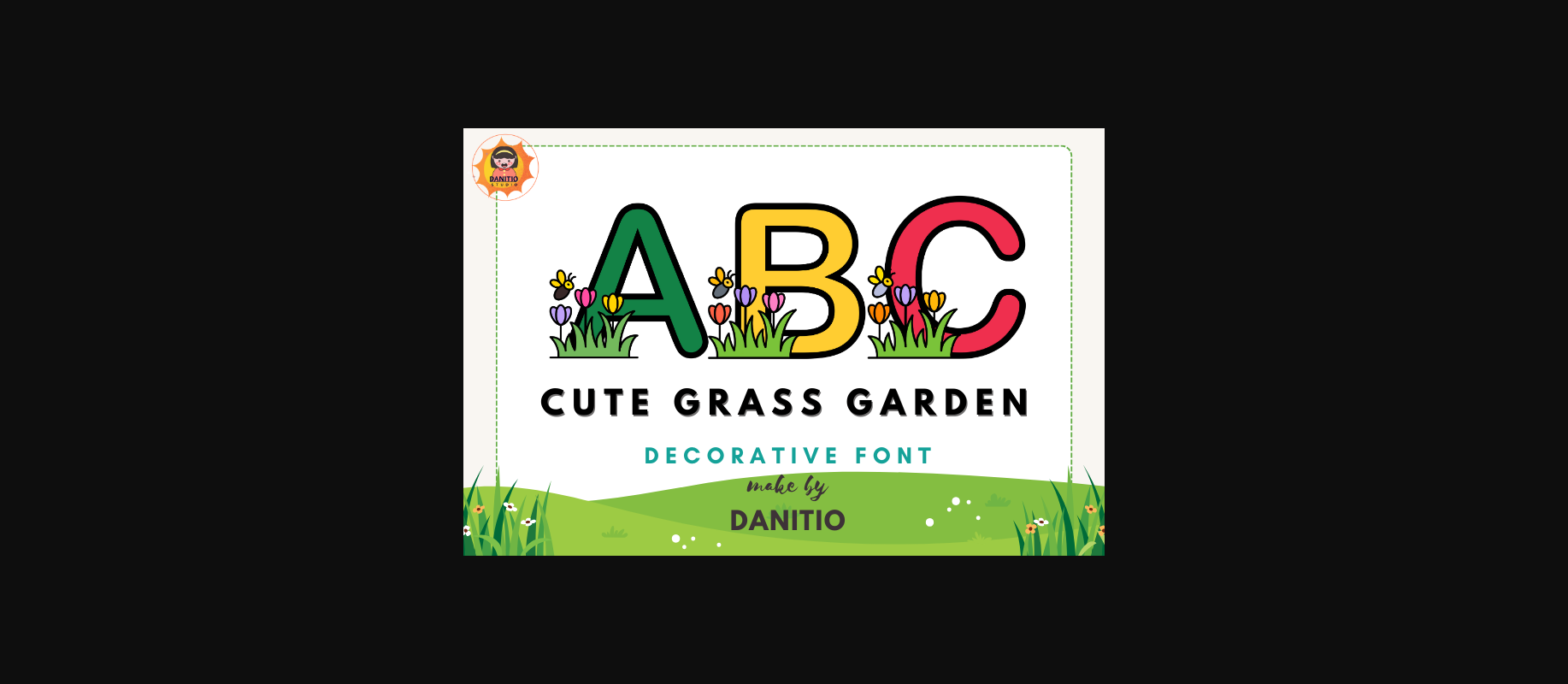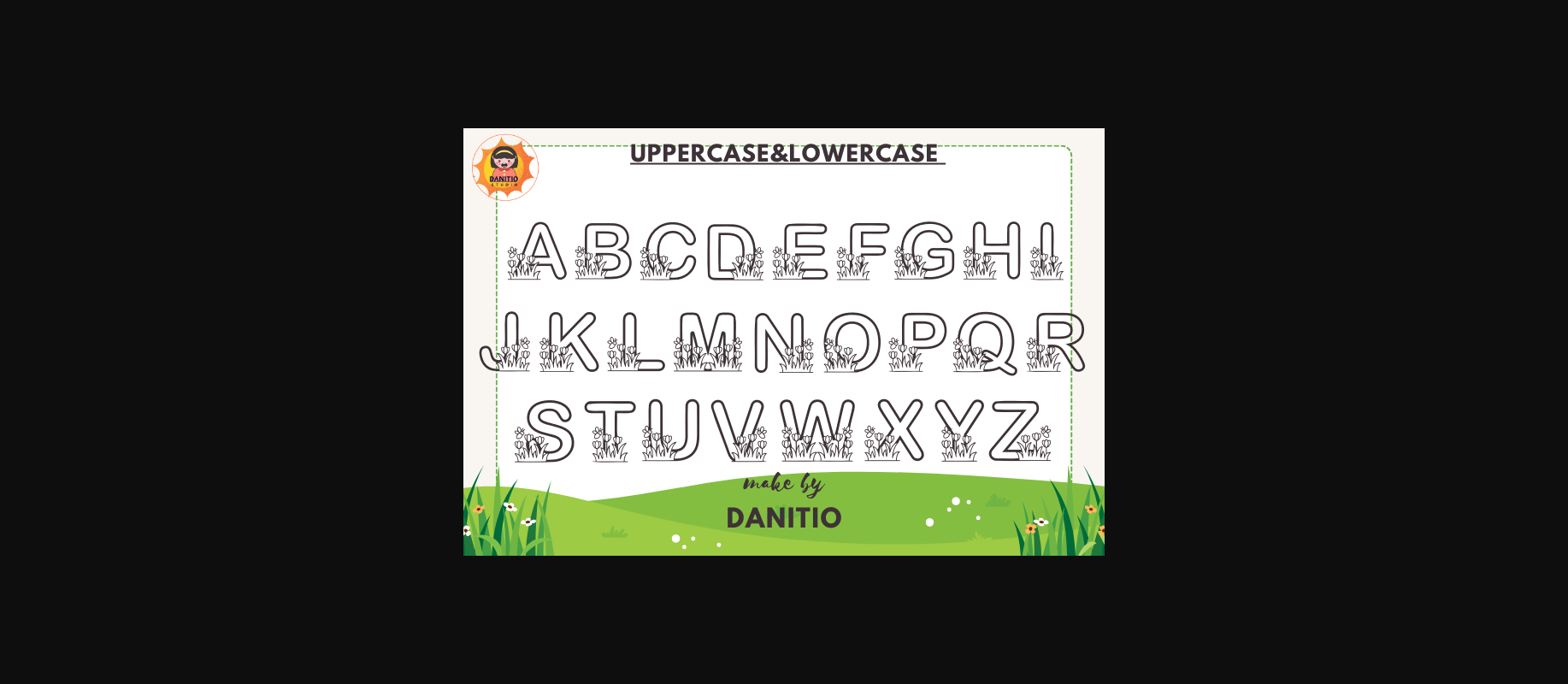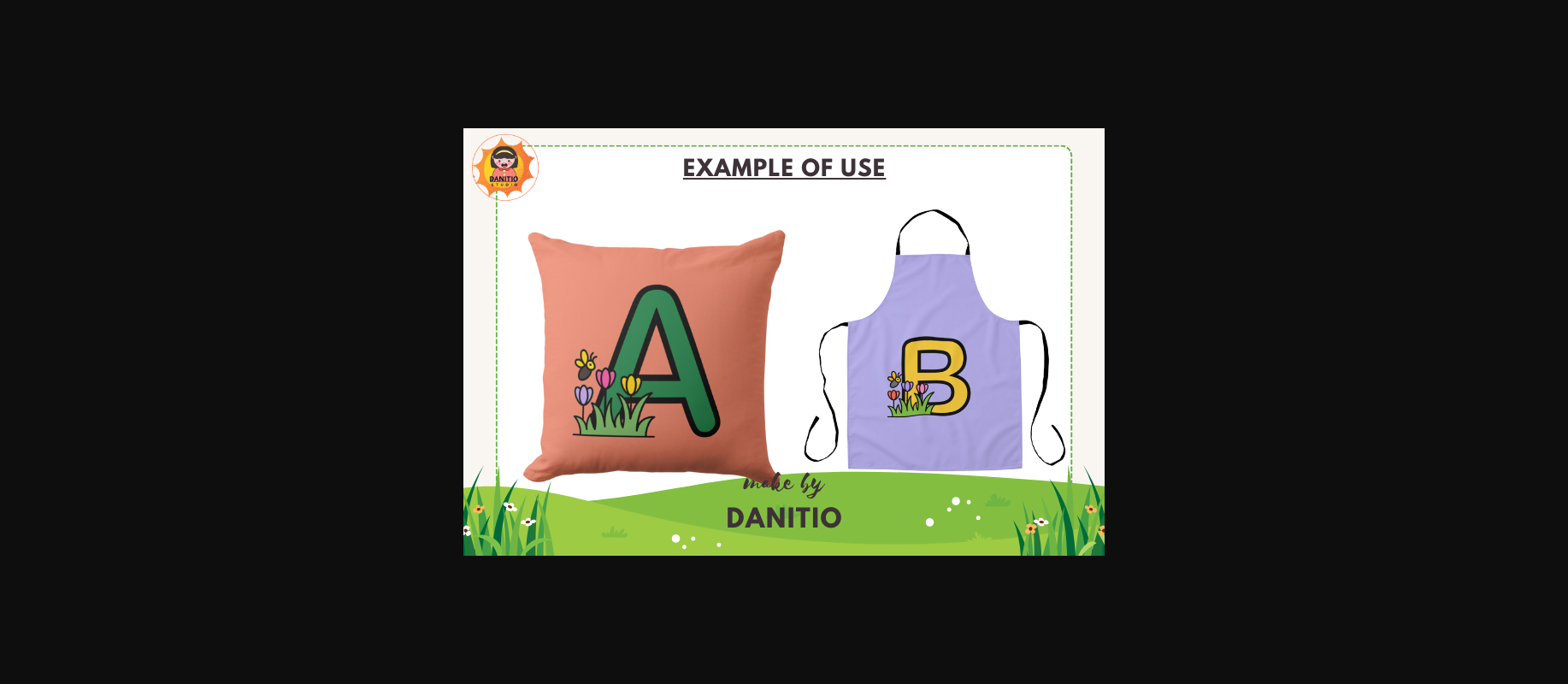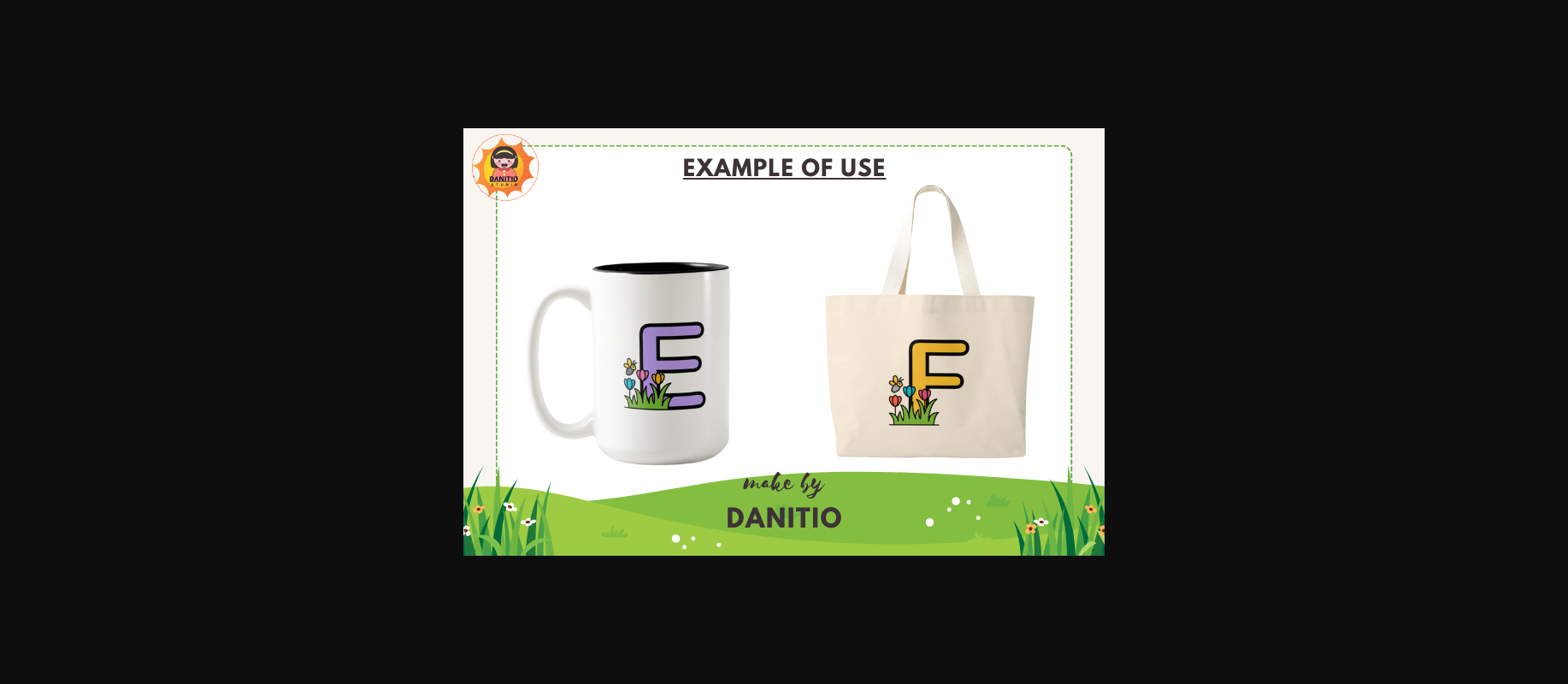
Cute Grass Garden Font
About Cute Grass Garden Font
Introducing the Cute Grass Garden font, a decorative font. A to Z and an interesting collection of uppercase letters. This font set beautifully combines letters with a cute little grass field, adding charm to your designs.